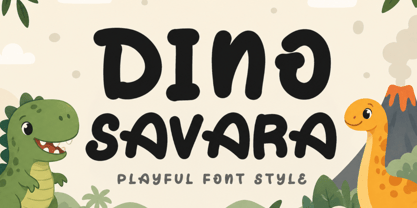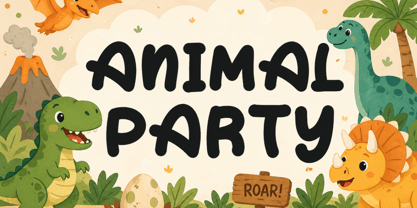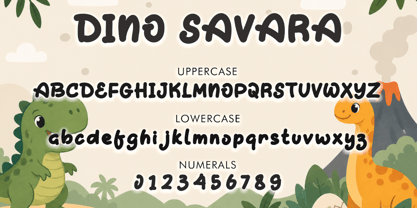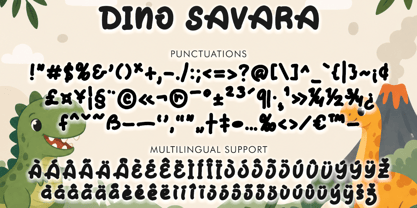
Dino Savara
by Yoga Letter
The Dino Savara Font Family was designed by Isroni Yoga Prasetya and published by Yoga Letter. Dino Savara contains 1 styles. More about this family
"Dino Savara" is a cute and unique display font. It features uppercase and lowercase letters, numbers, punctuation, and multilingual support. It's perfect for birthdays, animations, cartoons, comics, summer, banners, holidays, vacations, back-to-school, Christmas, logos, banners, branding, stickers, posters, prints, greetings, easter, spring and more.
Designers: Isroni Yoga Prasetya
Foundry: Yoga Letter